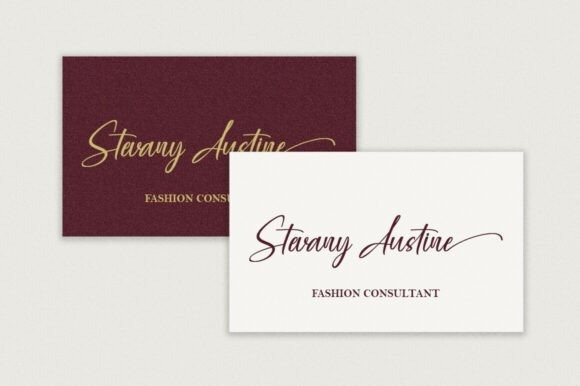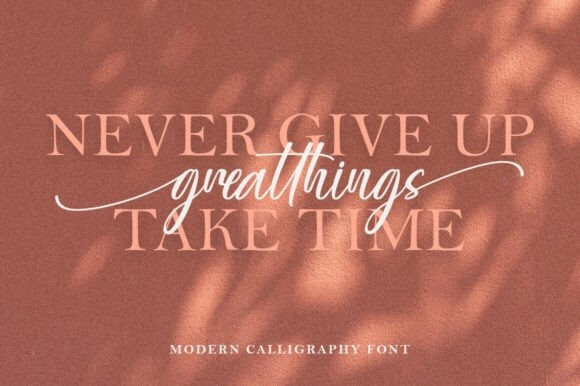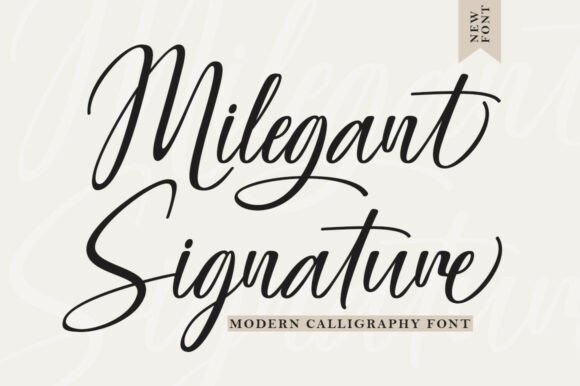
Milegant Signature Font
Milegant Signature Font is a refined modern calligraphy font that gracefully blends elegance with natural pen flow. Inspired by personal signature styles, it features a sleek, fluid rhythm with high-contrast strokes, subtle slants, and sophisticated curves. What sets this font apart is its extensive alternates set, with beautifully extended letter pairs and smooth ligatures that create a polished and handcrafted look. The swashy terminals and flowing tails give the text a sense of movement and luxury, making it ideal for upscale branding, wedding materials, and editorial design. With its high legibility and organic beauty, Milegant Signature transforms simple text into visual poetry. With PUA encoding included, all special characters and decorative elements are easily accessible without additional software.